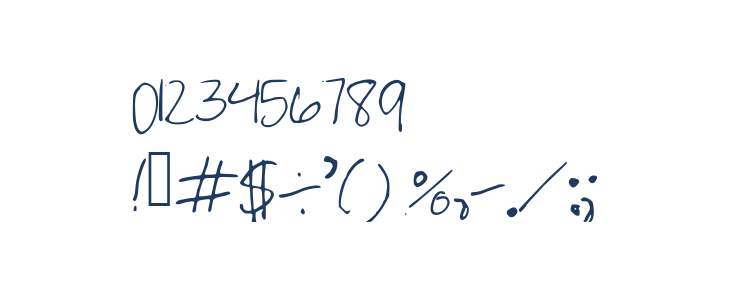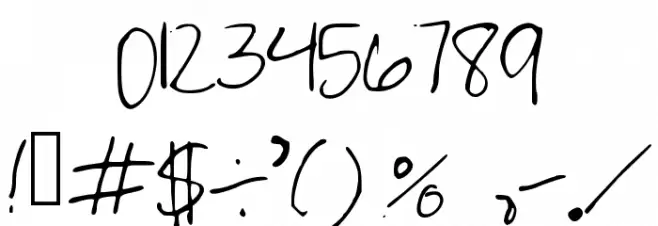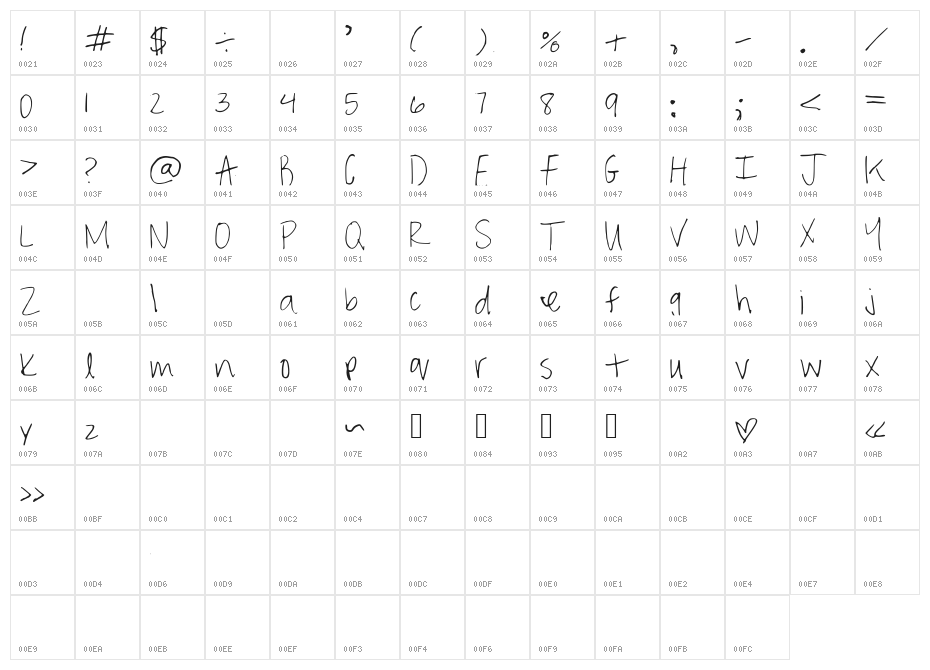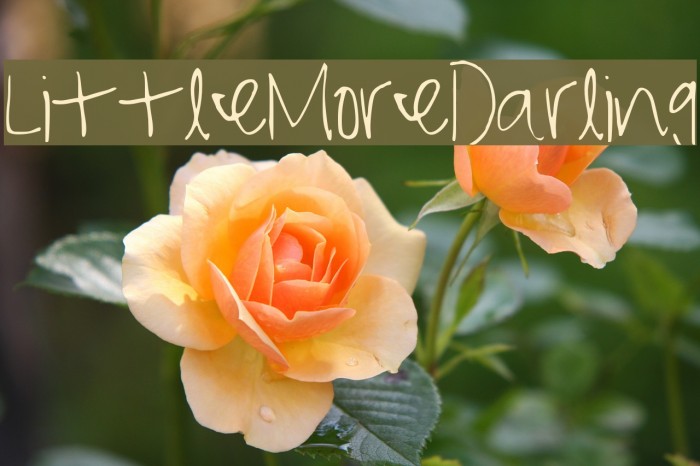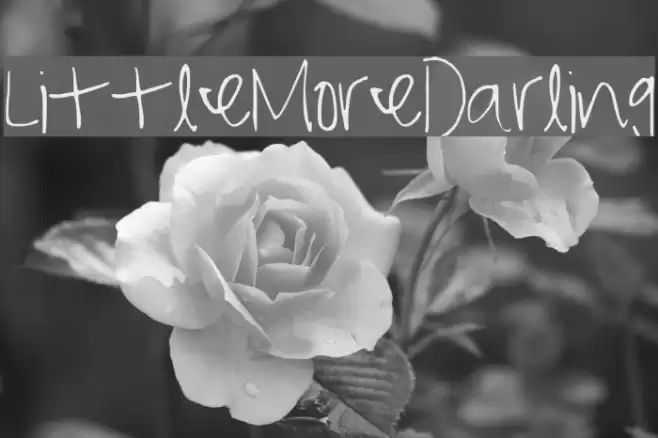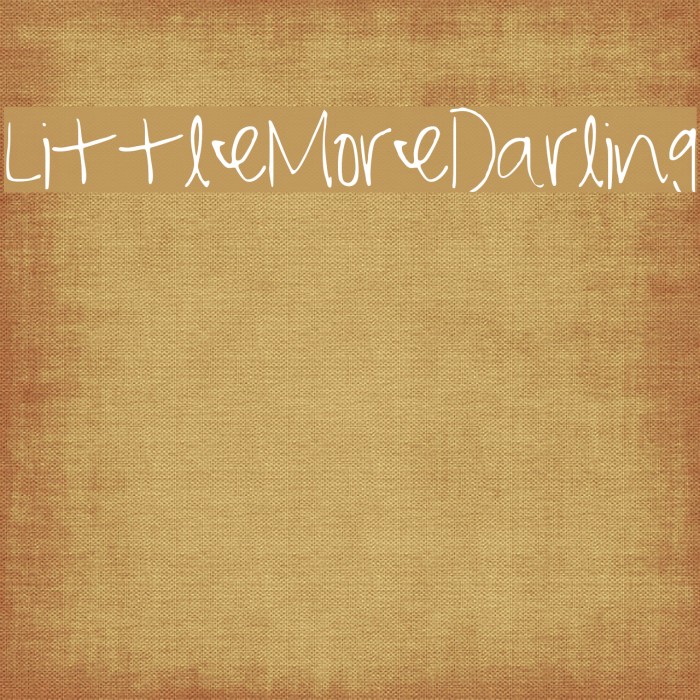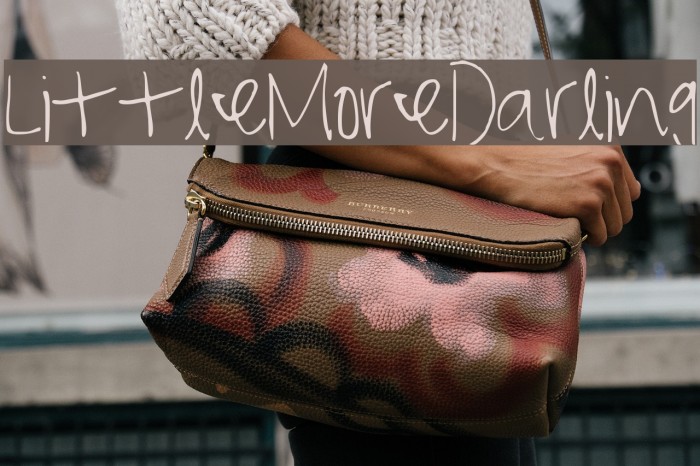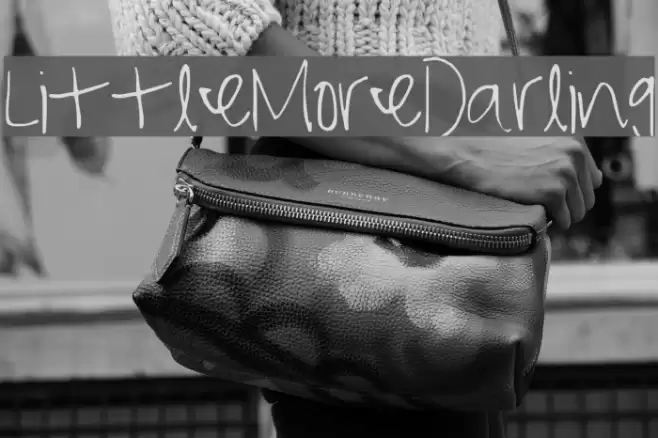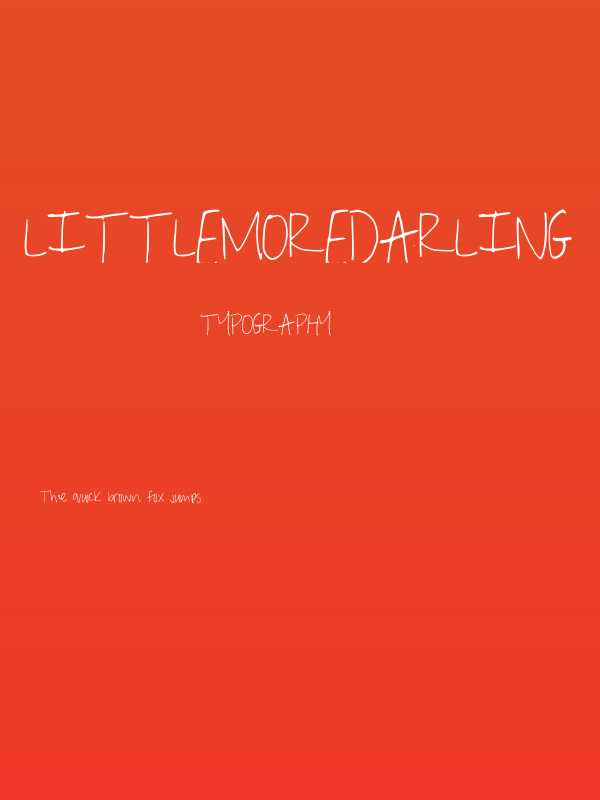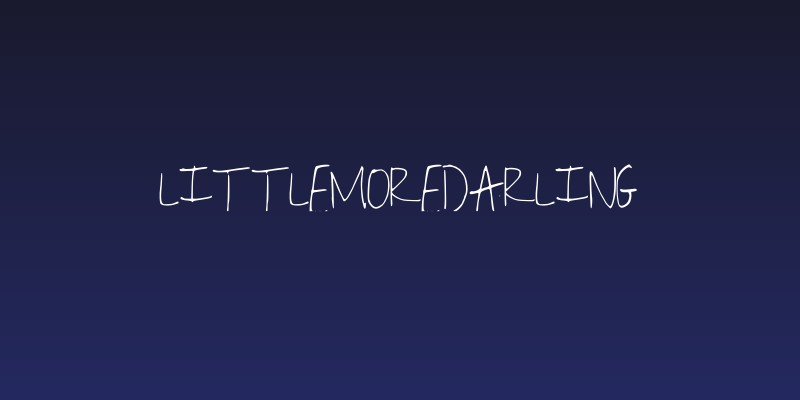
LittleMoreDarling Description
This font features a playful and casual handwritten style, characterized by its irregular strokes and organic flow. The uppercase letters are tall and slightly narrow, with a whimsical touch that adds personality. Lowercase letters maintain a consistent style, with some letters like 'e' and 'g' having unique, charming loops. The numbers are clear and legible, matching the overall handwritten aesthetic. Special characters are creatively designed, maintaining the playful theme. This font exudes a friendly and approachable vibe, making it suitable for informal and creative projects.